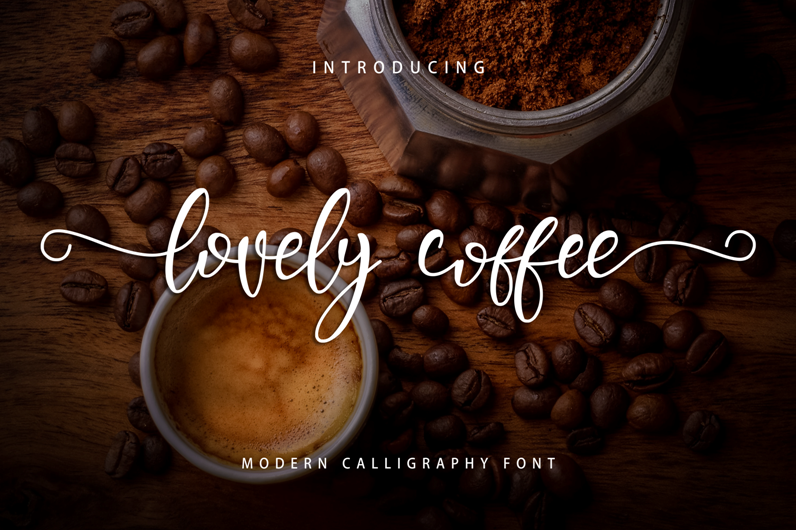
Preview and download Lovely Coffee Font. Created by Alief Syahru in Script Calligraphy styles with Free for personal use license.
Font name: | Lovely Coffee |
Author: | Alief Syahru |
Lovely Coffee simplifies elegance into one truly outstanding handwritten font. A new font look with a relaxed feel in handwriting style, it maintains its classy calligraphic influences while feeling contemporary and fresh. Perfect for your creative projects this season. This is a free font for PERSONAL USE only. But every donation I greatly appreciate. Paypal account for donations: https://www.paypal.me/arukidz If you want to use this font for COMMERCIAL purposes, you need a commercial license that can be purchased at my store. Get also promos or discounts on each event here: - https://www.creativefabrica.com/product/lovely-coffee/ref/236359/ - https://www.creativefabrica.com/ref/236359/ If you have questions, feel free to send me a message at arukidz.fl@gmail.com (Instagram: @arukidz.fl) For those of you who have used my font for commercial purposes and have previously purchased a license, hopefully your fortune will increase, your company will become more successful and your family will be happier. Thank you very much. Let's support each other :) |